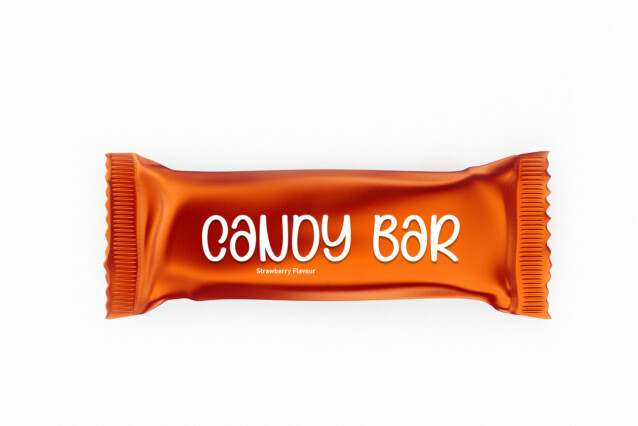
Family Vacation Display Font
Family Vacation Display Font is a fun handwritten font perfect for adding a touch of creativity to your projects. Its playful style captures the essence of a memorable family trip, making it ideal for adding a personal touch to invitations, scrapbooks, and more. Whether you’re planning a holiday-themed project or simply want to inject some warmth into your designs, Family Vacation is the perfect choice for all your creative needs.